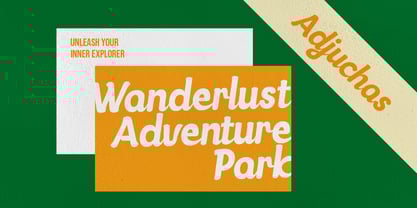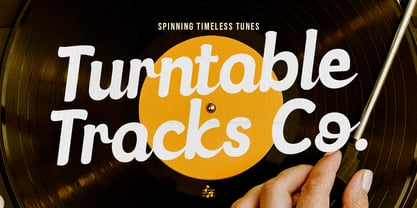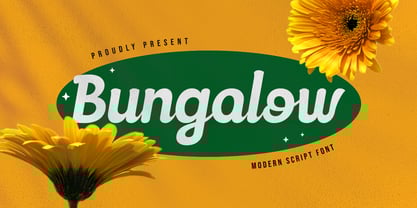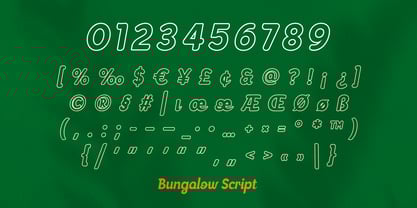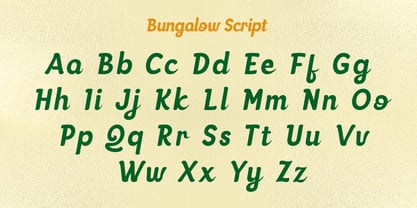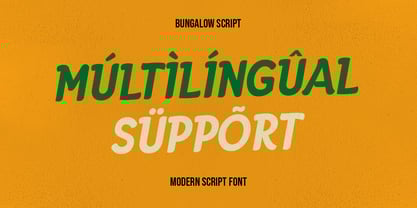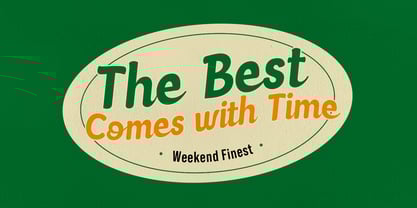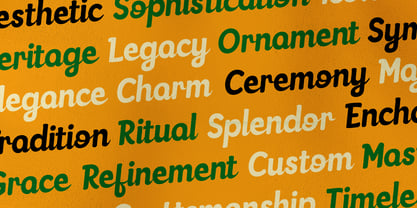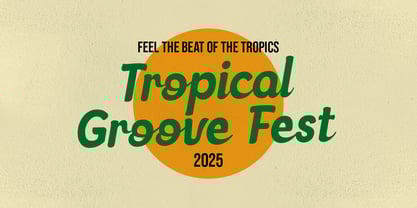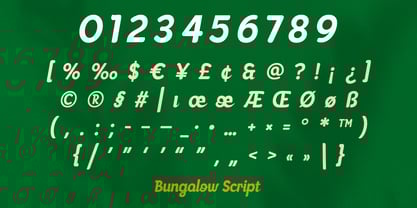
Bungalow SS
by Sensatype Studio
The Bungalow SS Font Family was designed by Zamroni Hamzah and published by Sensatype Studio. Bungalow SS contains 2 styles and family package options. More about this family
Bungalow - Modern Script Font
Bungalow is a modern script font that brings an air of elegance and charm to any project. With its smooth, flowing strokes and carefully crafted characters, Bungalow is ideal for creating chic logos, stylish branding, or elegant invitations. Its graceful curves add a handwritten touch that feels both personal and refined, making it a versatile choice for any creative endeavor.
Inspired by the effortless beauty of calligraphy, Bungalow captures the essence of modern sophistication. It’s designed to convey a sense of warmth and fluidity, while still maintaining a polished look. Perfect for wedding invitations, signature logos, or fashion branding, this font adds a personalized yet professional touch to your designs. Whether you're designing for high-end products or creating memorable keepsakes, Bungalow’s modern script style ensures your work stands out. Its graceful lines and artistic flair make it a font that seamlessly blends elegance with contemporary appeal.
Bungalow Modern Script Font Features:
• Smooth Connected Characters Ready
• Punctuation, Number, and Symbol
• Uppercase and Lowercase
• Multilingual Support
• OpenType Features
Designers: Zamroni Hamzah
Foundry: Sensatype Studio